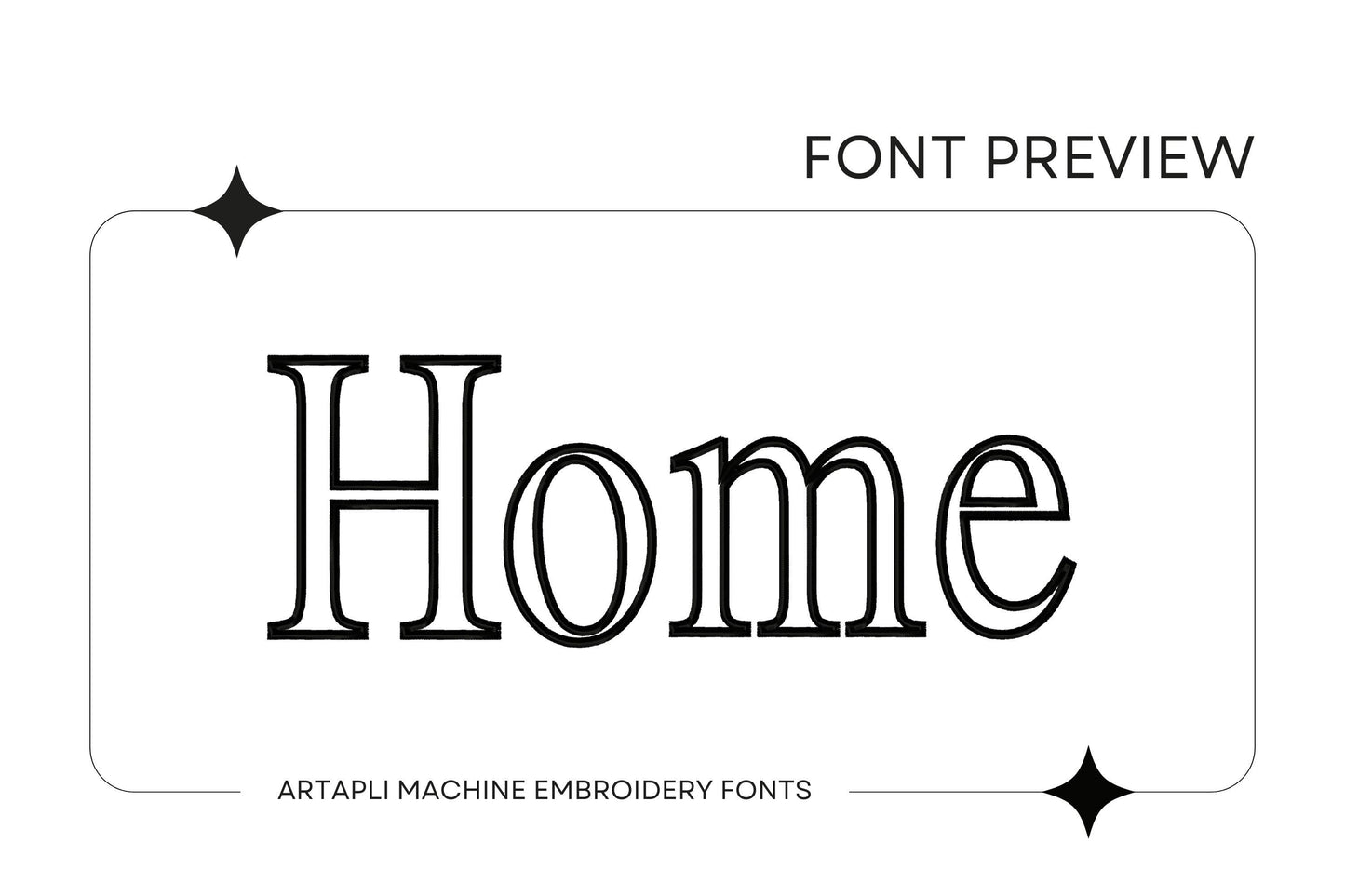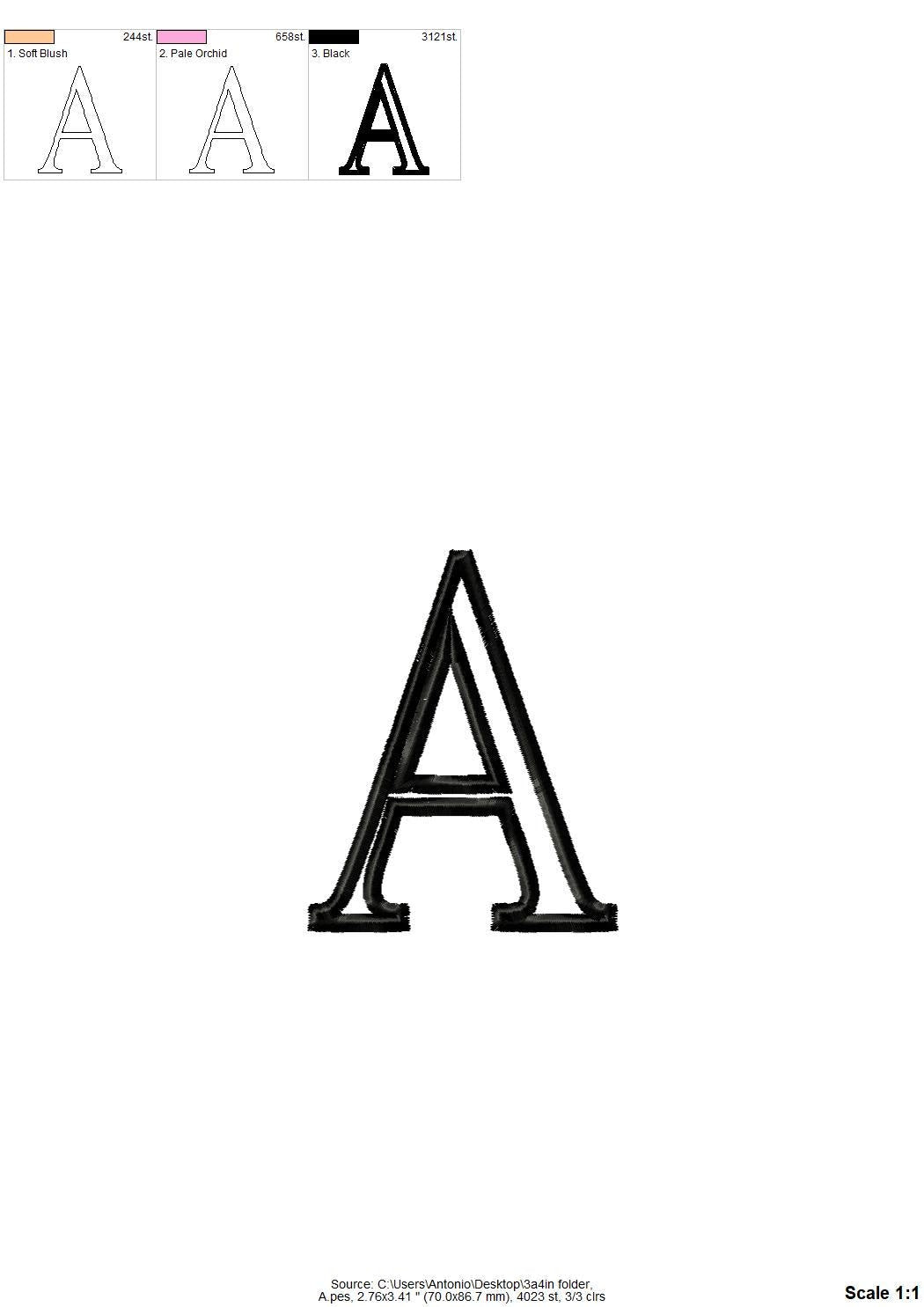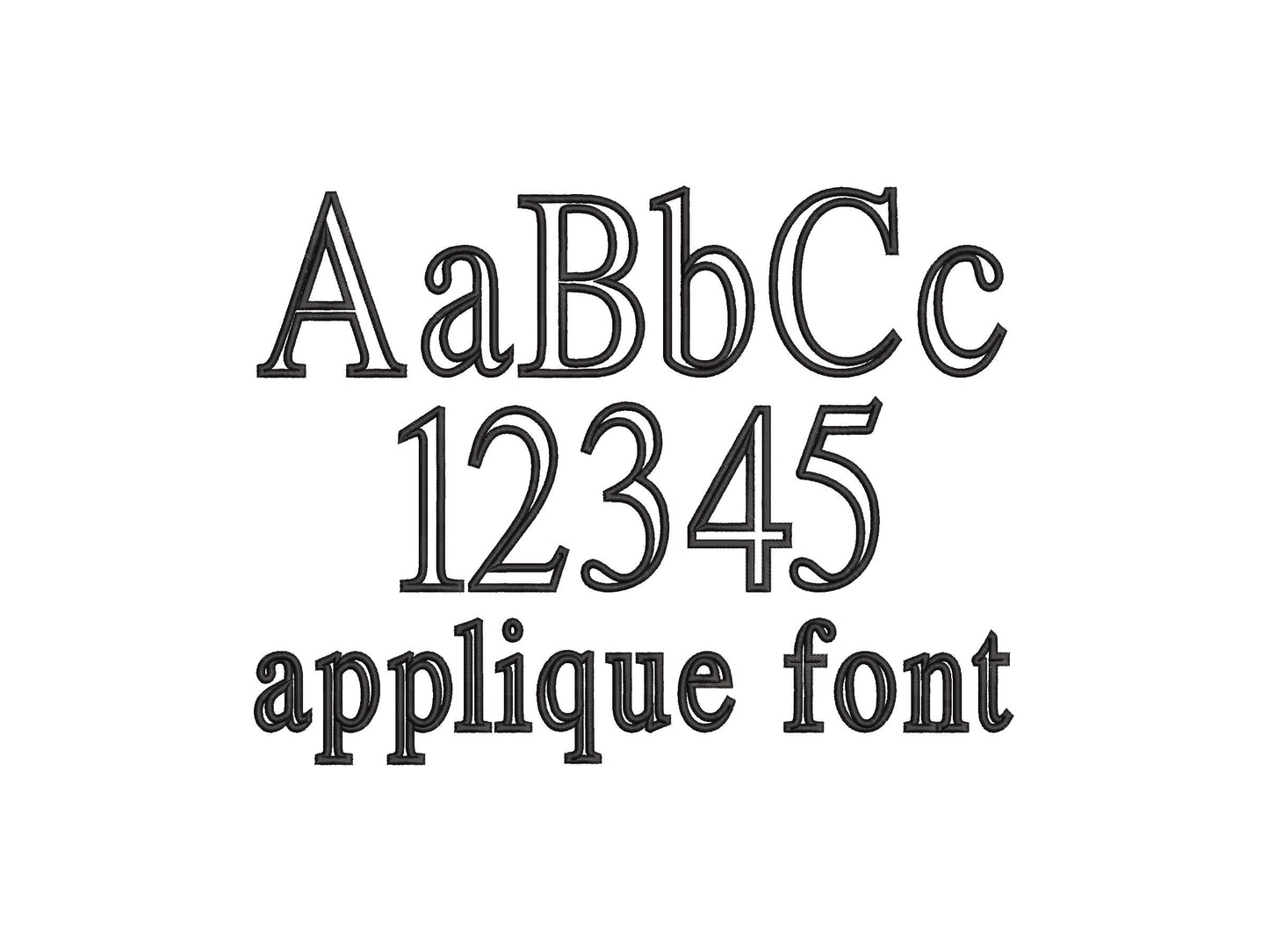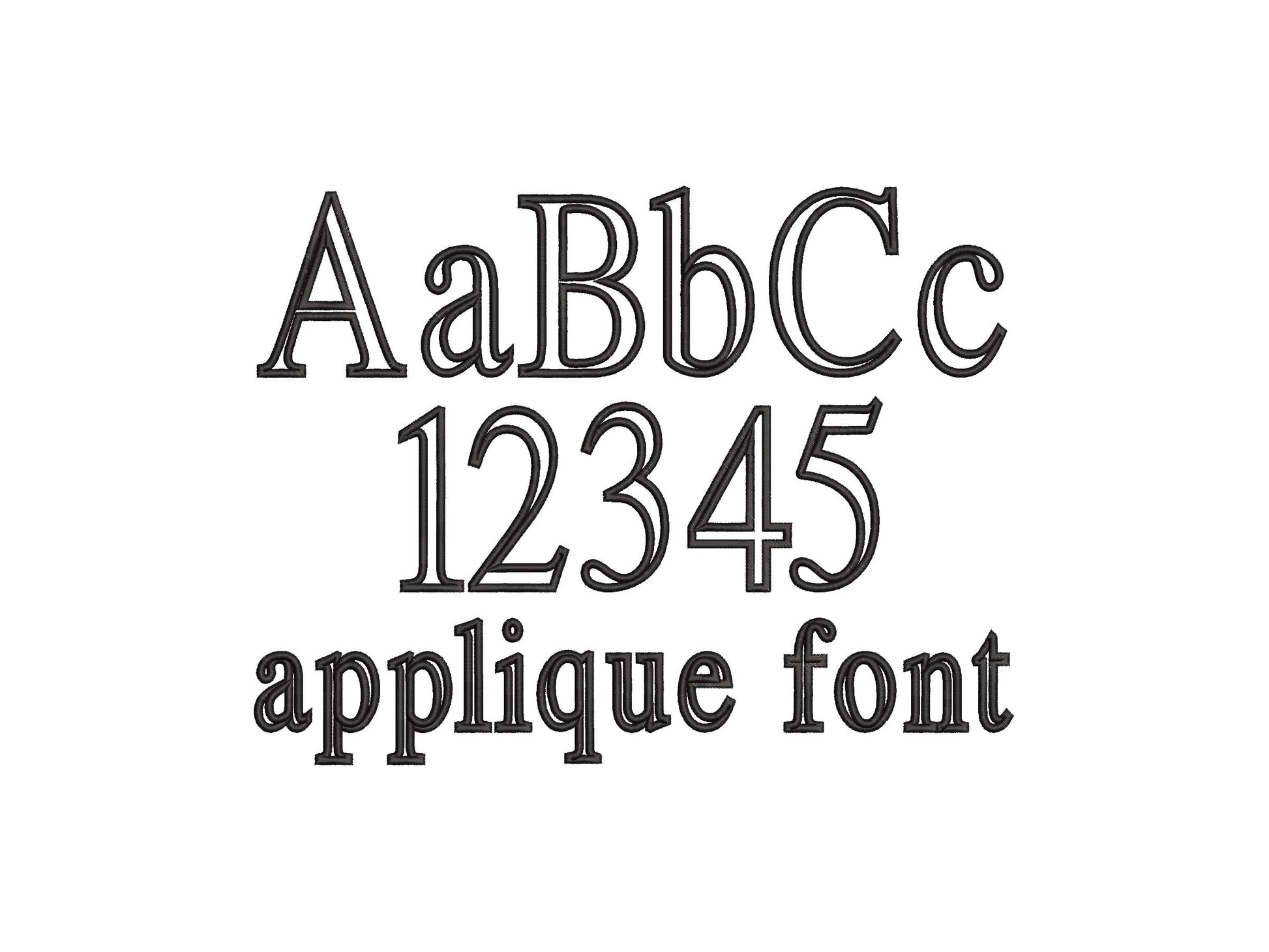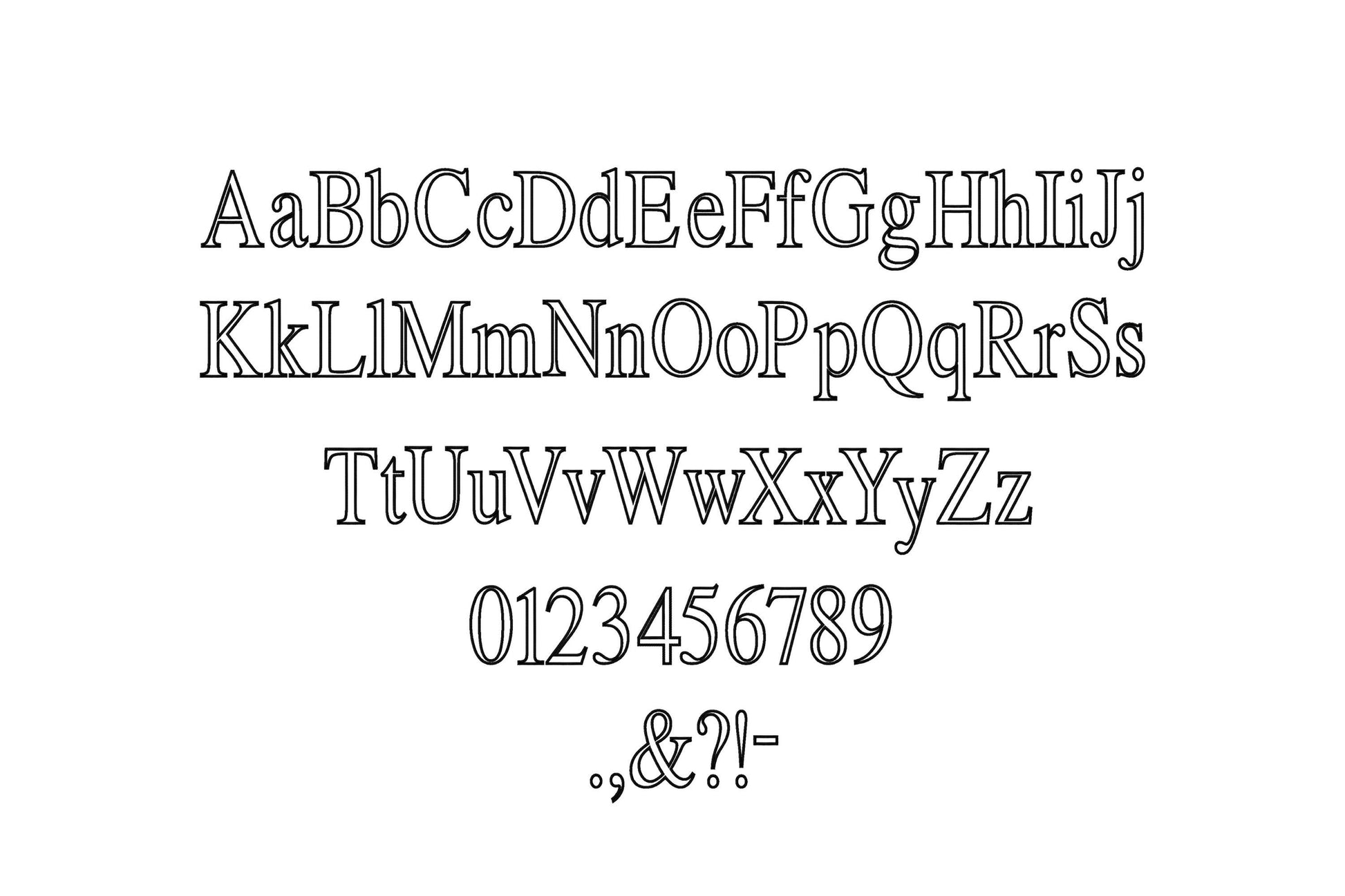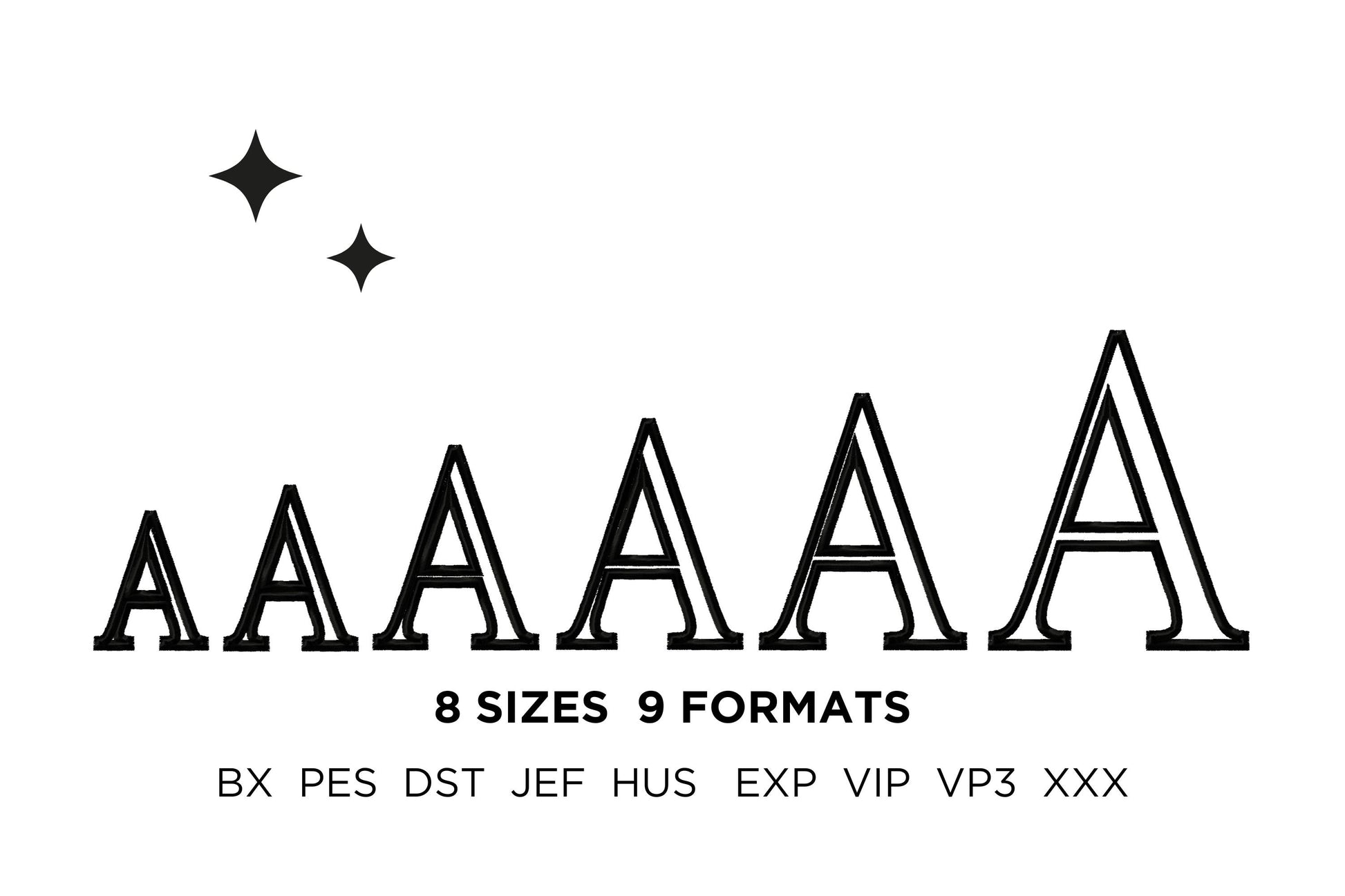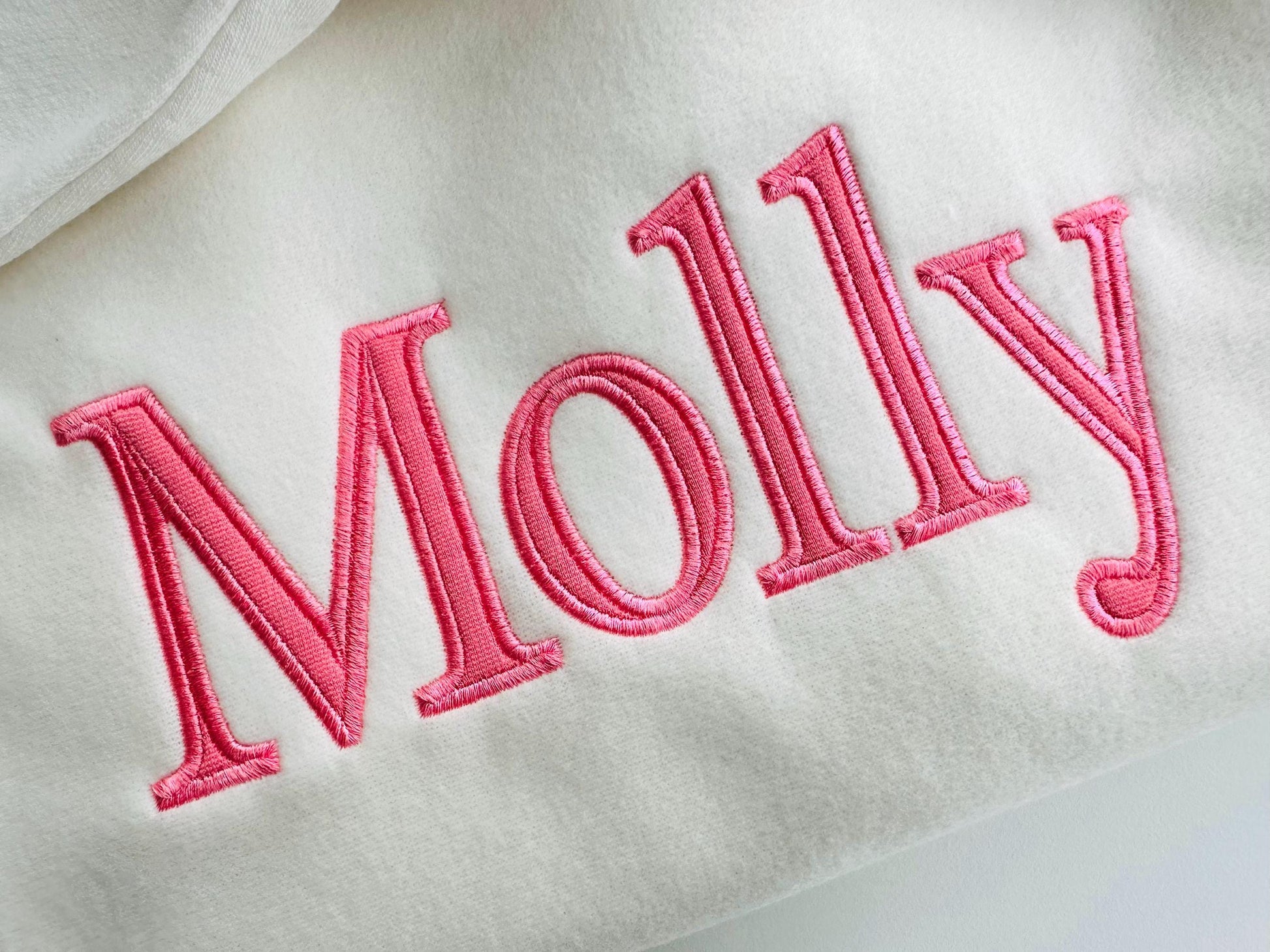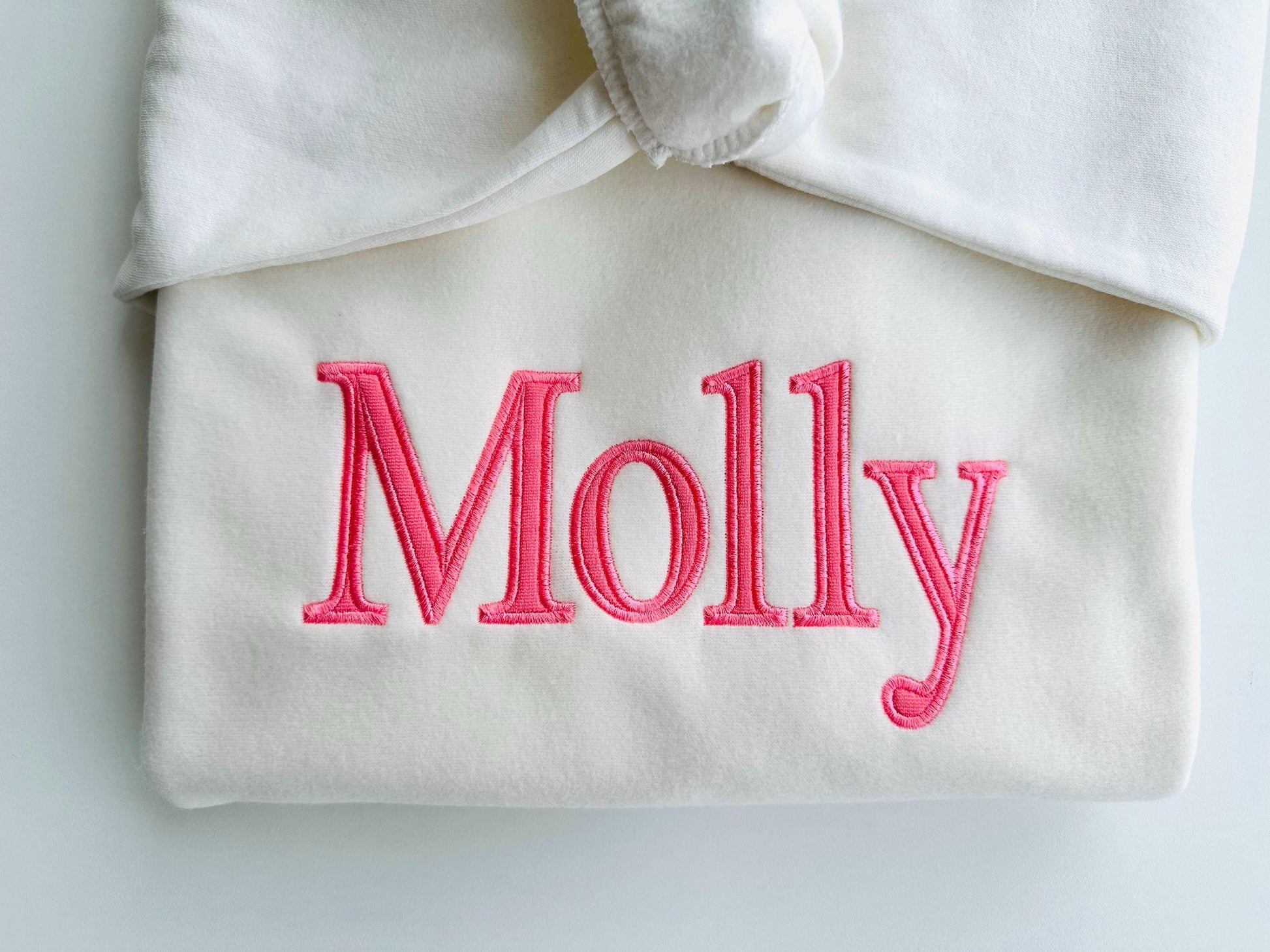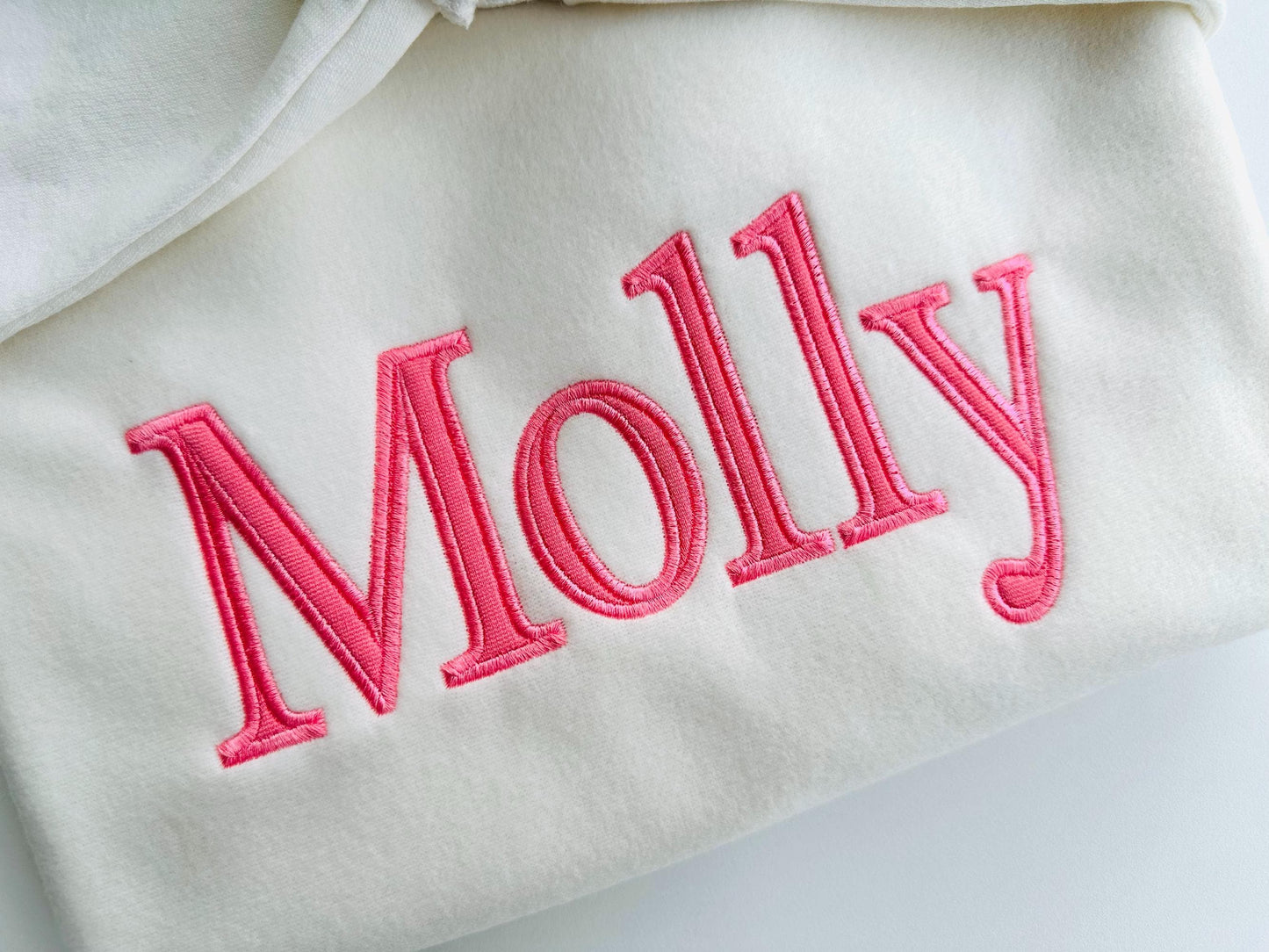
Roman Style Applique Font
Uppercase and lowercase letters, numbers 0 to 9 and punctuation, in six sizes: 2, 2.5, 3, 3.4, 3.8 and 4.7 inches.
- Roman style applique font
- Uppercase and lowercase letters, numbers 0-9, punctuation